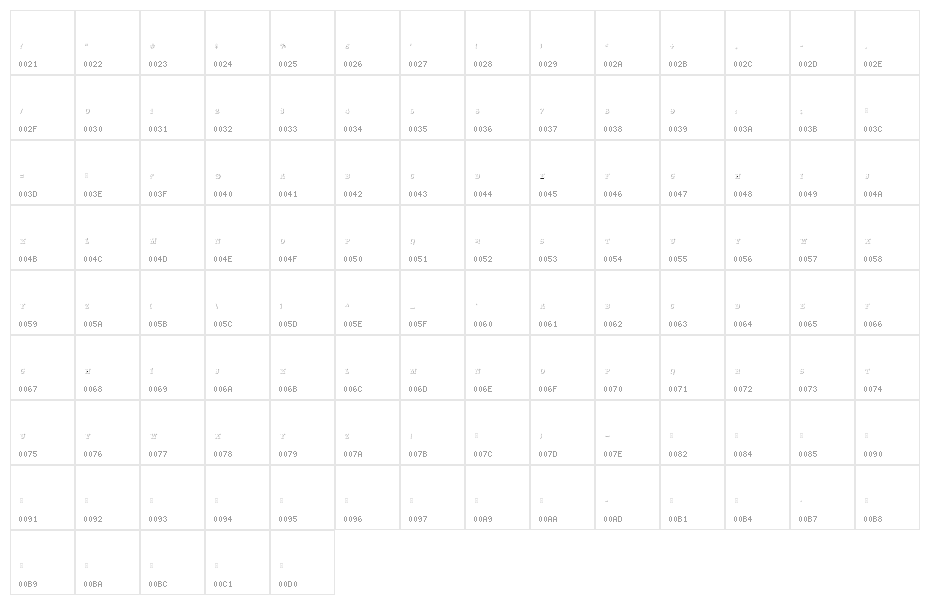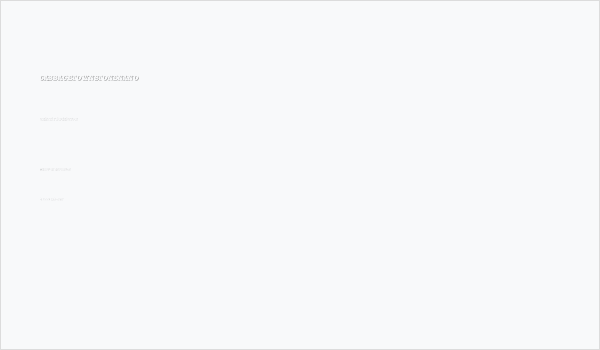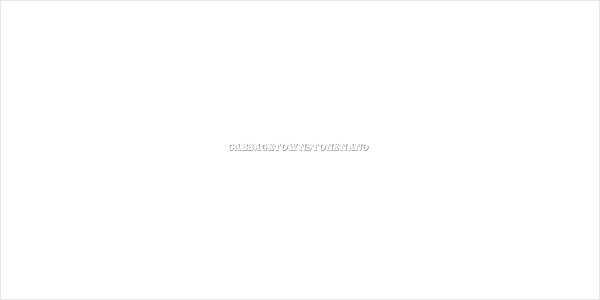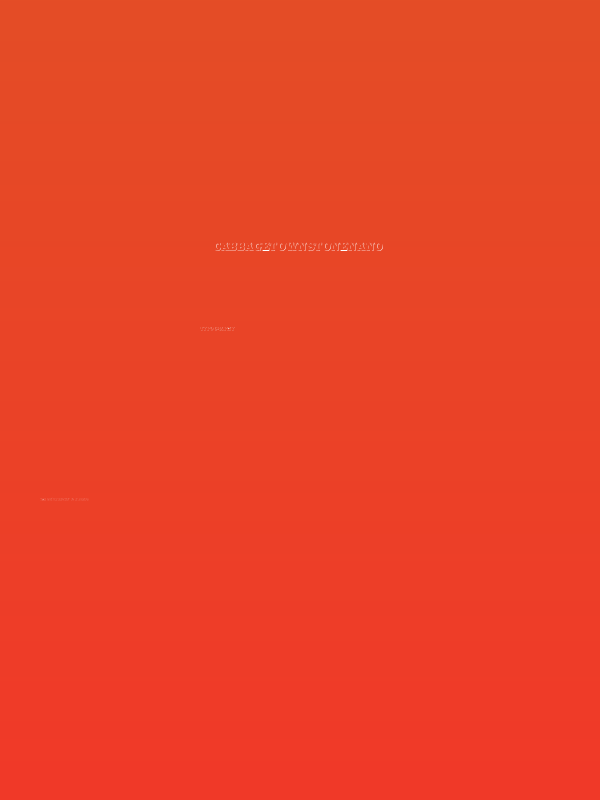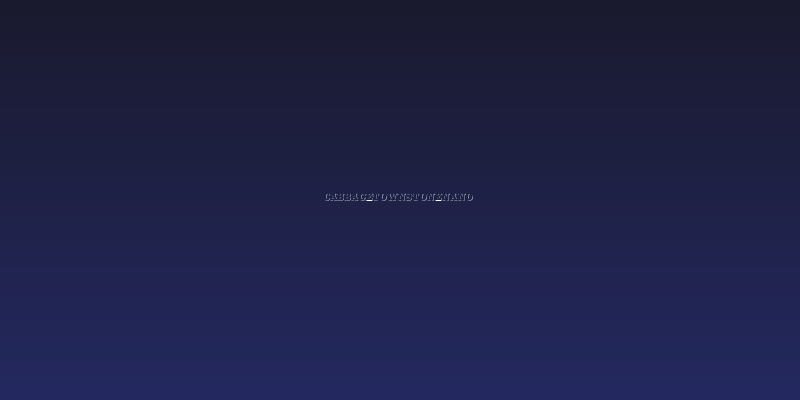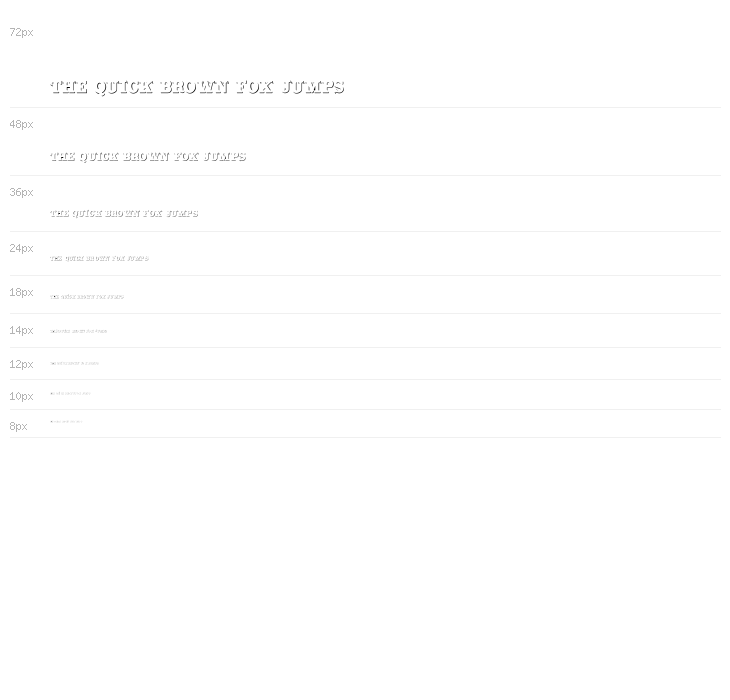
CabbagetownStoneNano Font
CabbagetownStoneNano Description
This font features a distinctive, chiseled appearance reminiscent of stone carvings, giving it a unique and textured look. The uppercase letters are bold and prominent, with sharp edges and a slightly condensed form. The lowercase letters maintain the same chiseled style, ensuring consistency across the typeface. Numbers and special characters are designed with the same attention to detail, making them stand out with their intricate design. The overall aesthetic is both classic and decorative, suitable for projects that require a touch of elegance and sophistication.
| Overall Style | Classic, Decorative |
| Use Case | Logos, Signage, Branding |
| Proposed Projects | Ideal for use in branding, logos, signage, and any project that requires a classic yet decorative touch. |